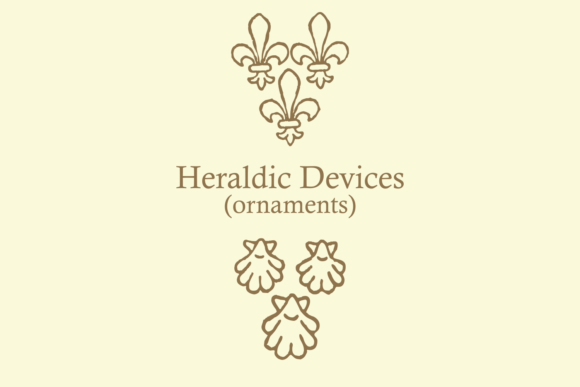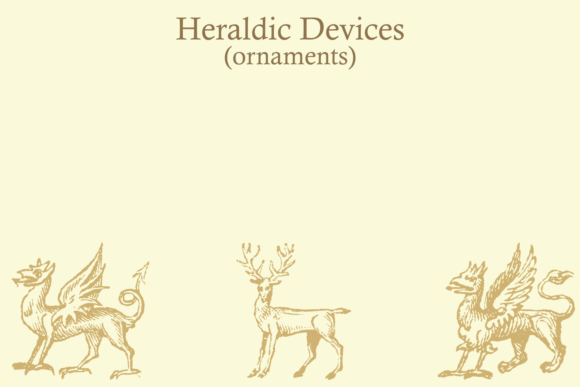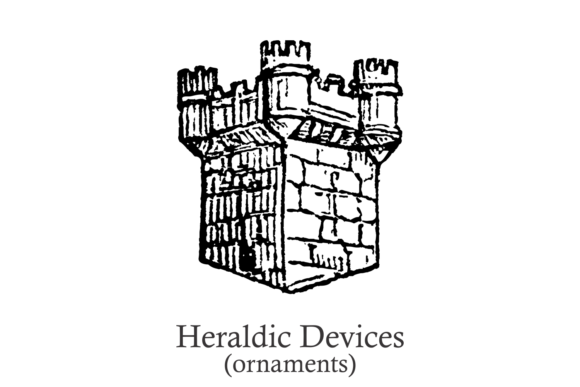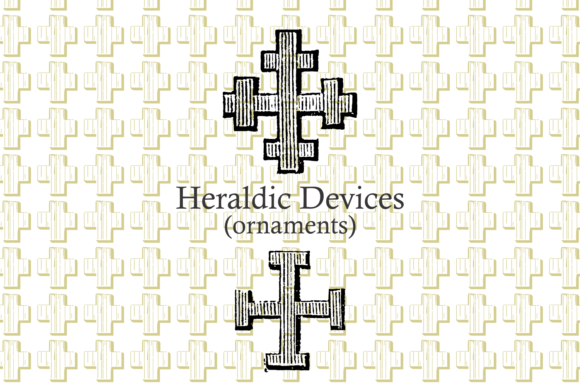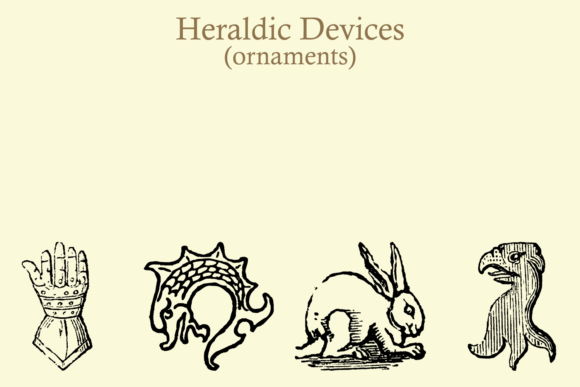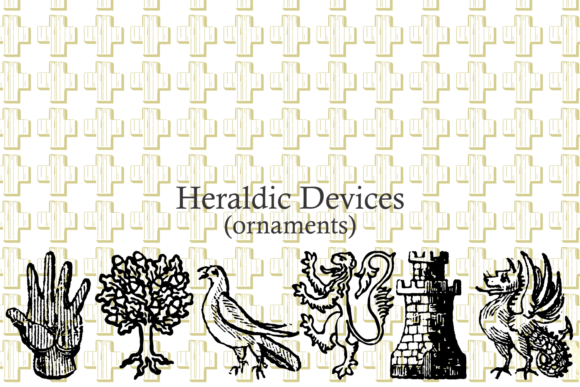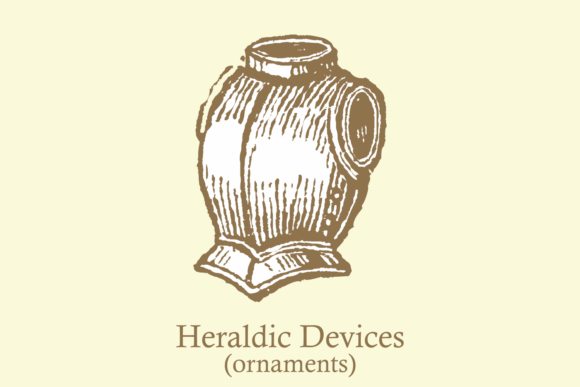
The Ultimate Symbol of Elegance: Heraldic Devices Premium Font
As a designer, there’s nothing quite like the thrill of bringing a concept to life. You’re brainstorming ideas, sketching out rough drafts, and experimenting with different fonts – and suddenly, the perfect combination clicks. But what if you had a secret weapon to elevate your designs to the next level? Enter the Heraldic Devices Premium Font, a game-changing tool that unlocks a world of sophistication and refinement.
This premium font is more than just a typeface – it’s a collection of expertly crafted heraldic devices that add a touch of luxury to any design. With its rich history and timeless appeal, the Heraldic Devices Premium Font is a valuable asset for designers looking to create truly unforgettable visuals. Whether you’re working on a high-end brand identity or a bespoke invitation, this font is sure to impress.
Heraldic Devices Premium Font Key Features
- High-Quality Vector Graphics: The font is designed with high-resolution vector graphics, ensuring crisp and clear display even at large sizes.
- Large Character Set: Includes over 500 unique heraldic devices, providing a comprehensive collection for various design needs.
Heraldic Devices Premium Font Review
I was excited to dive into the Heraldic Devices Premium Font, and overall, it did not disappoint. The font’s unique blend of heraldic symbols and ornate designs adds a touch of sophistication and elegance to any project. ✨ I particularly appreciate the wide range of symbols and devices available, which can be used to create intricate and detailed designs.
Some of the standout features include:
- A wide variety of symbols and devices to choose from
- High-quality, detailed designs
- Perfect for creating unique and eye-catching designs
- Supports a range of languages and character sets
- The font is quite heavy and may not be suitable for smaller text sizes
- Some of the symbols may be difficult to read or understand without context
- The font may be overwhelming or too ornate for some designs
Overall, I think the Heraldic Devices Premium Font is a great addition to any designer’s toolkit. While it may have some limitations, its unique features and high-quality designs make it a valuable resource for creating complex and eye-catching designs. ⚠️ Just be sure to use it thoughtfully and in the right context.